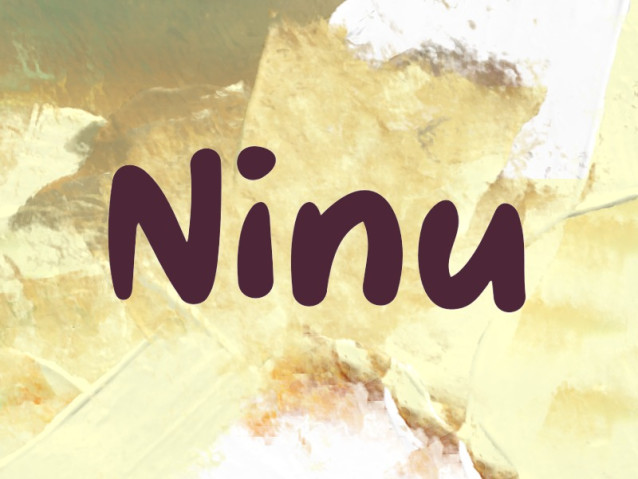
Ninu Font
Ninu Font is a simple and modern display font suitable for quotes, logos, headings, titles, and many more. Use it on any of your creative projects, and your designs will become outstanding!